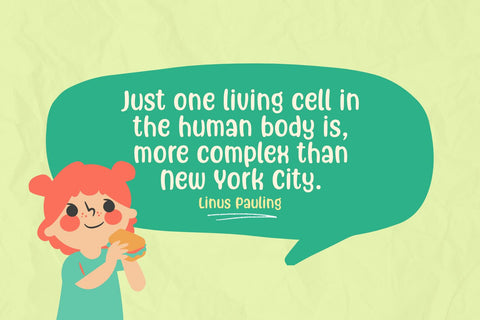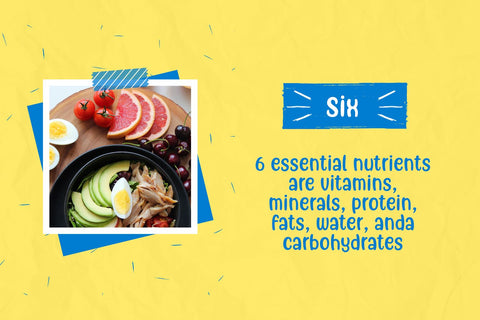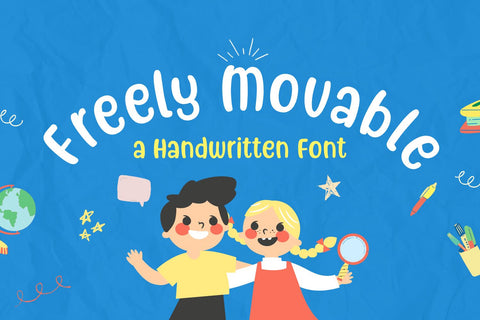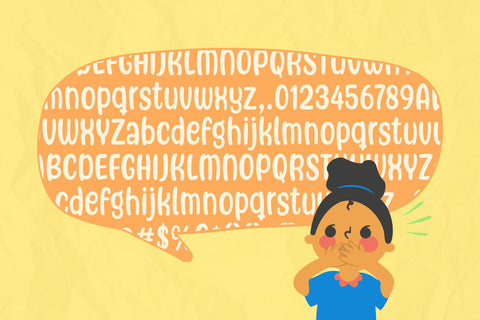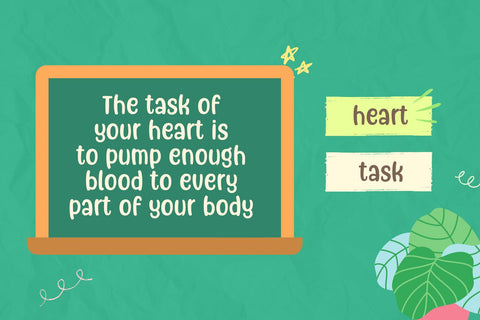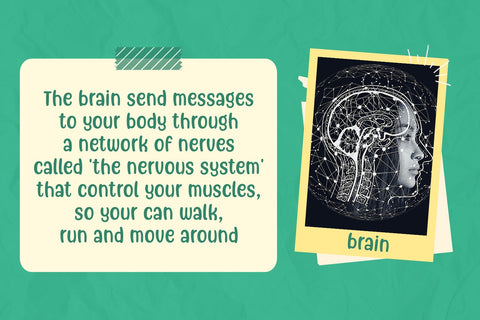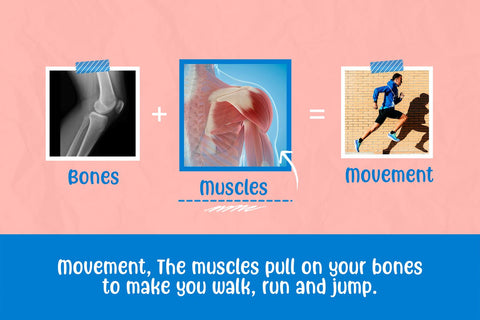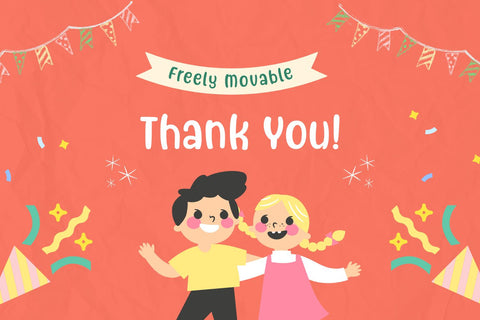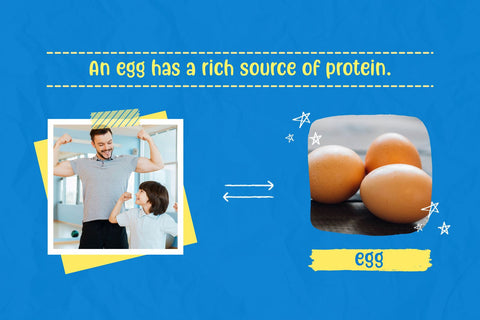
Freely Movable - a Handwritten Font
Freely Movable is a chic and bubbly display font. It embodies playfulness and authenticity and is the perfect choice for any children activity or school project.